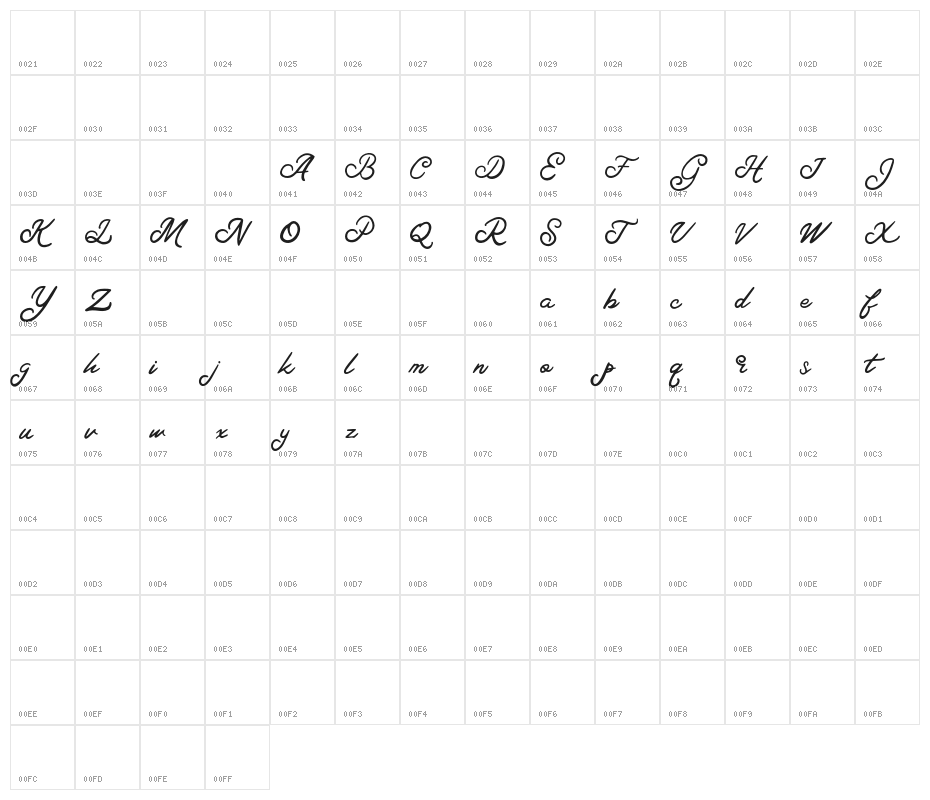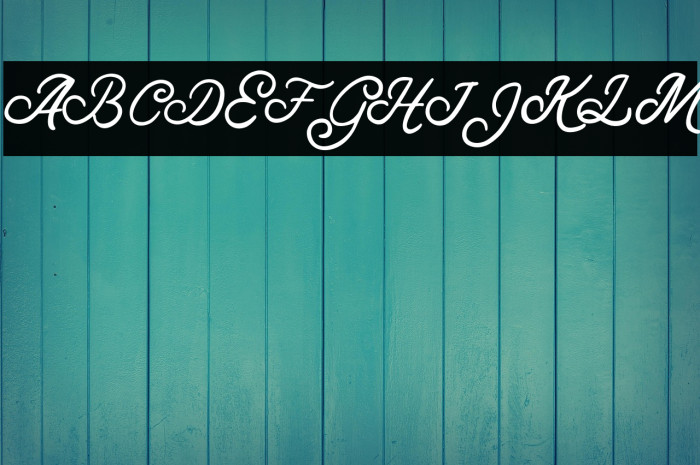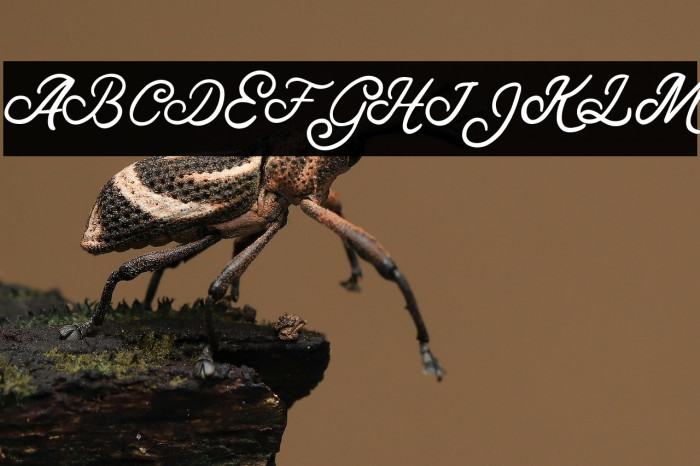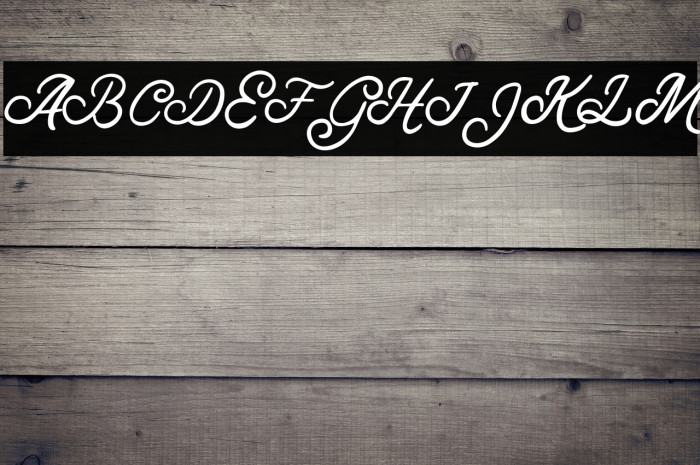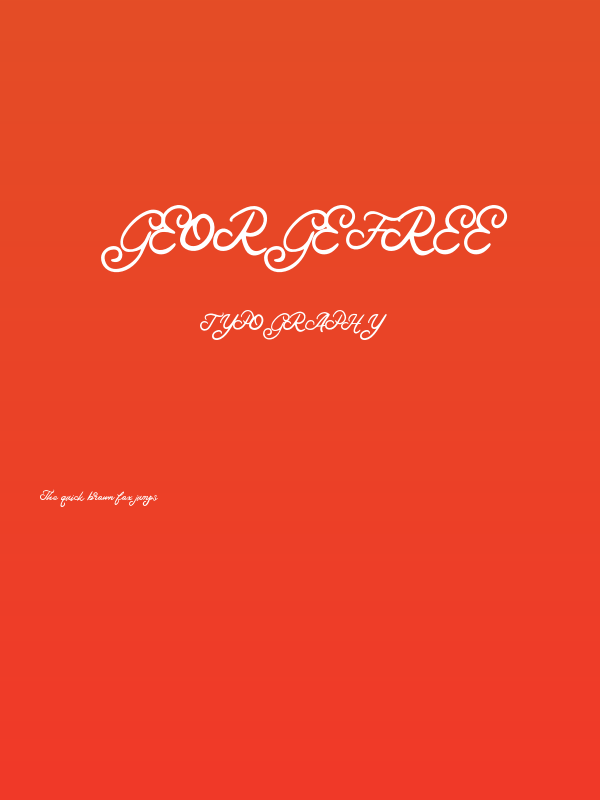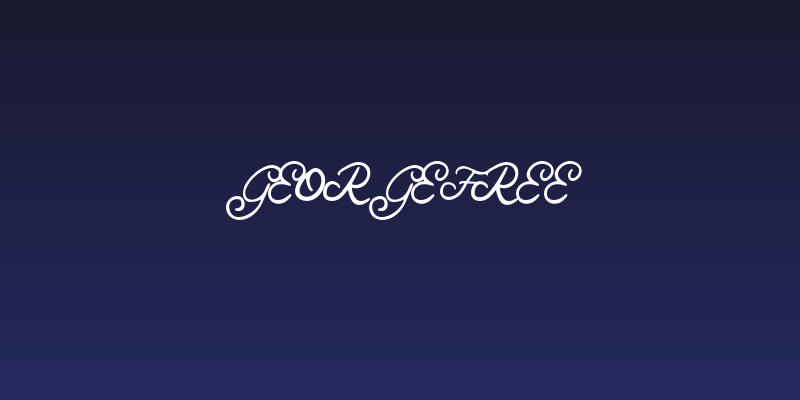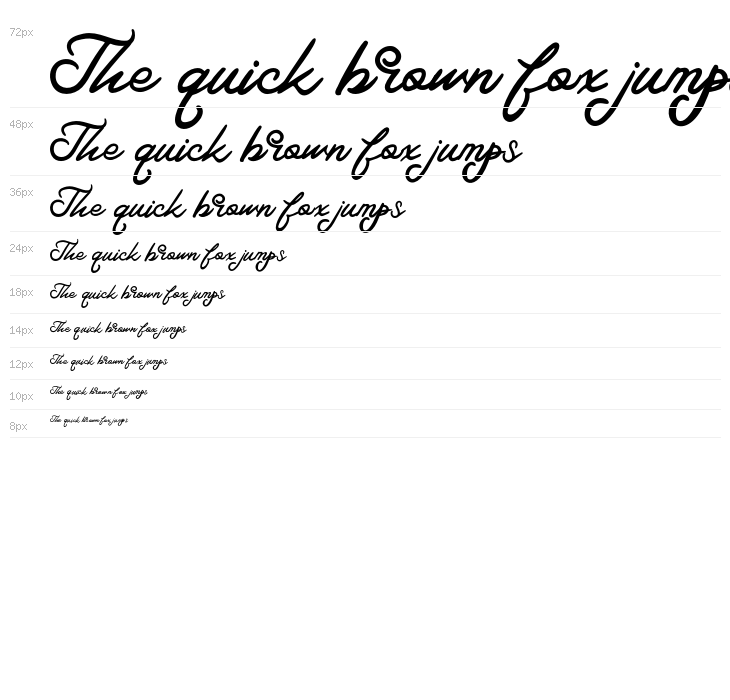
GeorgeFREE Font
GeorgeFREE Description
This font features an elegant and flowing script style, characterized by its smooth, cursive letterforms that convey a sense of sophistication and grace. The uppercase letters are ornate, with sweeping curves and flourishes that add a decorative touch. The lowercase letters maintain a consistent flow, enhancing readability while retaining the font's artistic flair. The overall design is reminiscent of traditional calligraphy, making it suitable for formal and creative applications. Its balanced weight and medium contrast in stroke thickness provide a harmonious appearance, ensuring legibility without compromising on style.
| Overall Style | Classic |
| Use Case | Logos, Invitations, Decorative text |
| Proposed Projects | Ideal for wedding invitations, greeting cards, branding projects, and elegant packaging designs. |